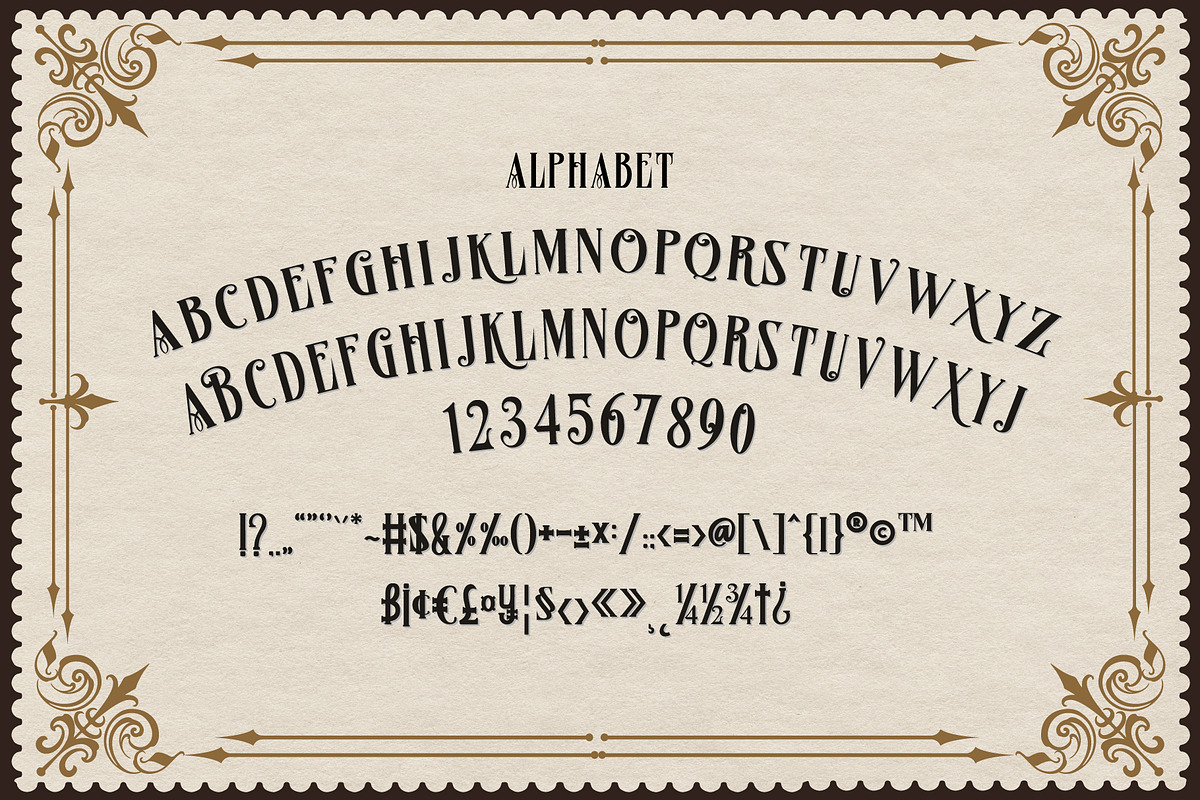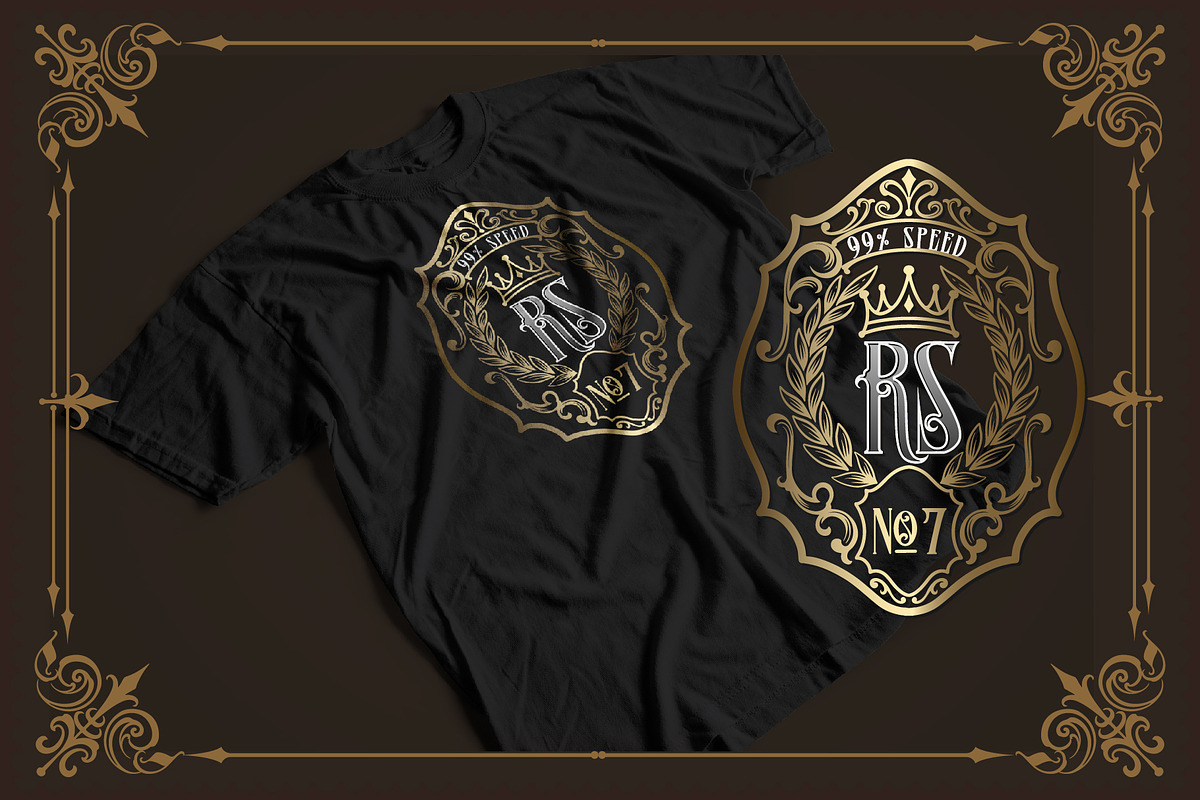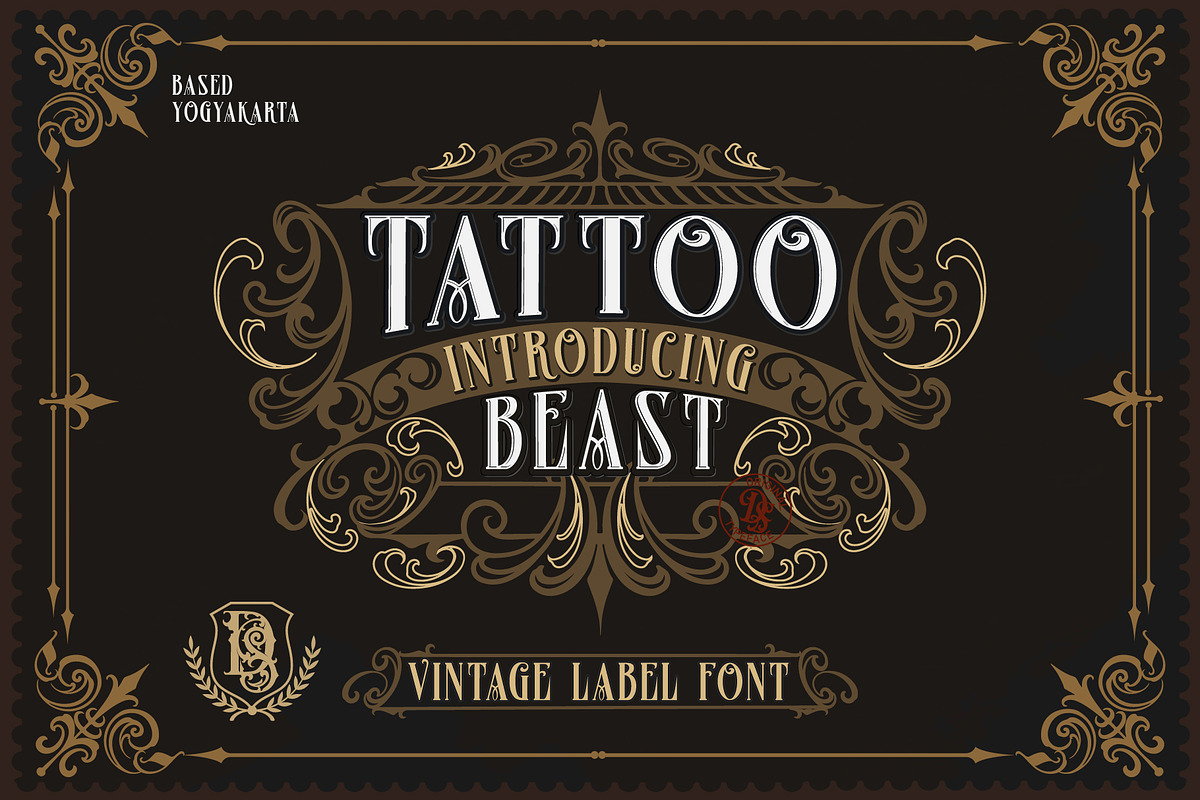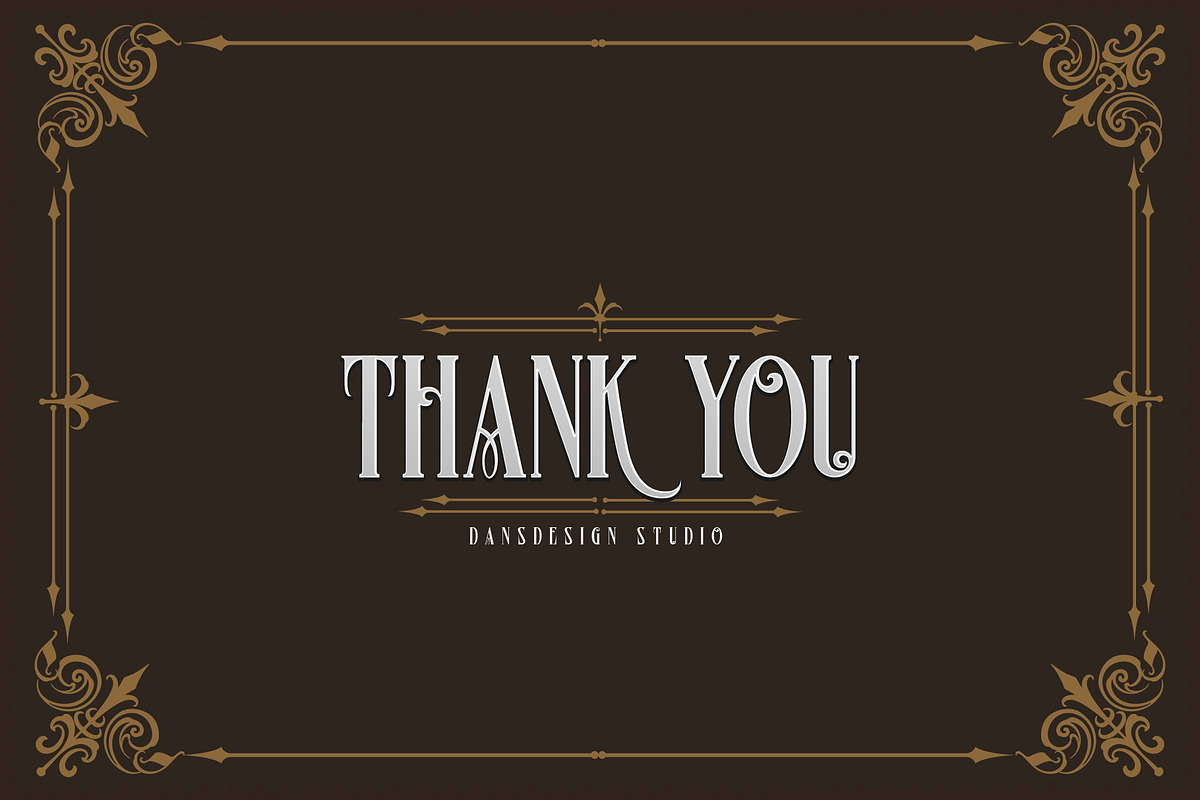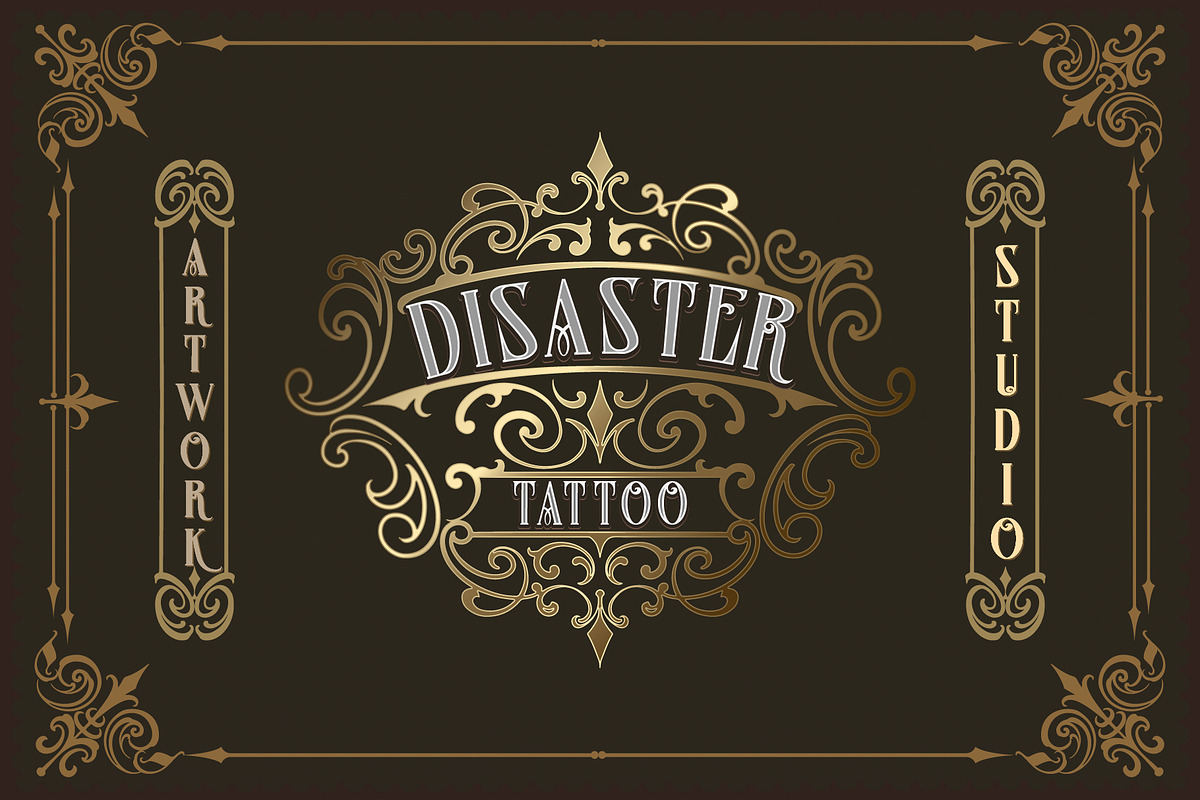
Tattoo Beast + Decorative
Dansdesign Proudly present " Tattoo Beast " vintage font, This font is made with references to various letters that I combine and design with my style.
Tattoo Beast are great and usefull for product logo, poster title, headline, packaging, badge, wedding card logo, clothing brand logo,Vintage design and much more